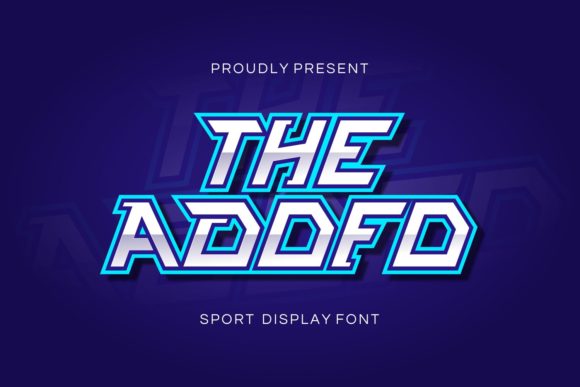
The Ultimate Guide to Adofo Font: Elevate Your Designs with a Futuristic Flair
I’ll never forget the time I was working on a futuristic-themed project for a client, and I was struggling to find the perfect font to capture the essence of innovation and cutting-edge technology. The design was sleek, modern, and edgy, but the font I was using just didn’t cut it. That’s when I stumbled upon Adofo Font, and it completely transformed my design. In this article, I’ll share my love for Adofo Font, its features, and how to make the most of it in your designs.
Adofo Font: The First Impression
Adofo is a fun display font with a futuristic feel that’s sure to make your projects stand out. Its unique and quirky design makes it perfect for creative hobbyists, designers, and crafters looking to add a touch of personality to their work. With Adofo Font, you can bring your projects to the highest levels and make them truly unforgettable.
An Honest Review of Adofo Font
What I Love About Adofo Font
• ✨ Unique and quirky design that’s perfect for futuristic-themed projects
• 💻 Great for headlines, titles, and short paragraphs
• 🎨 Versatile and can be used for a wide range of design projects, from posters to social media graphics
While Adofo Font is an amazing font, there are a few things to keep in mind:
• 🤔 May not be suitable for body text or long paragraphs, as it’s designed primarily for display purposes
• ⚠️ Some characters may not be suitable for use in coding or technical contexts
The Backstory of Adofo Font
Adofo Font was designed with the goal of creating a unique and futuristic font that would capture the essence of innovation and cutting-edge technology. The designer drew inspiration from sci-fi movies, video games, and futuristic architecture to create a font that’s both fun and functional.
Author pandastock
Q: What is Adofo Font?
A: Adofo Font is a fun display font with a futuristic feel that’s perfect for creative projects and designs.
Q: Is Adofo Font suitable for body text?
A: While Adofo Font is highly legible, it’s designed primarily for display purposes and may not be suitable for body text or long paragraphs.